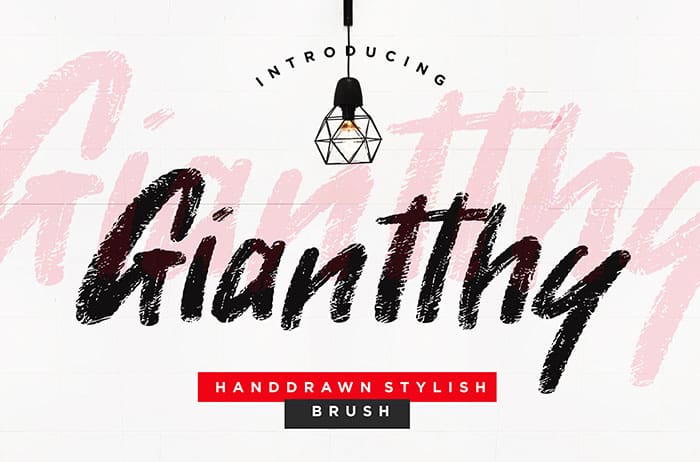
Giantthy Brush Font
Giantthy is a Brush Font with a hand-drawn sketch. Giantthy is perfect for branding projects, logo, social media posts, advertisements, and many more. Thanks to Creatype Studio for sharing this font! Take a look at this portfolio for more of his stunning fonts.